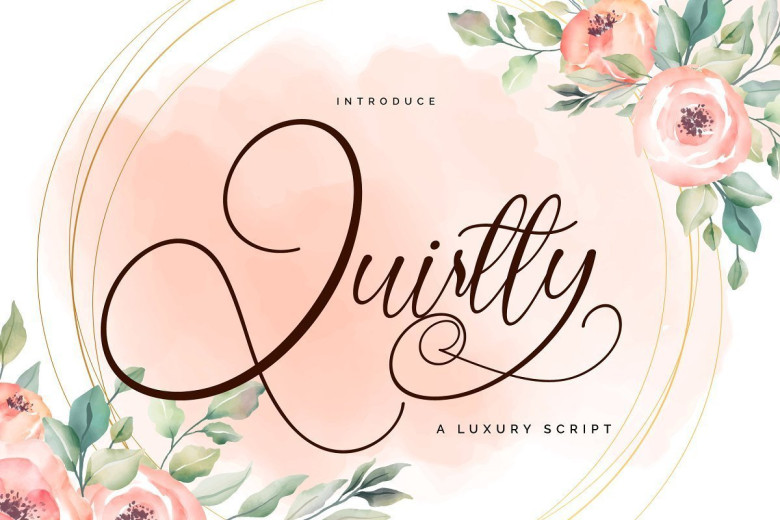
Quirtty Luxury Calligraphy Script Font
Quirtty Font is sweet calligraphy font. This font is casual and pretty with swashes. Can used for various purposes. such as logo, product packaging, wedding invitations, branding, headlines, signage, labels, signature, book covers, posters, quotes and more.